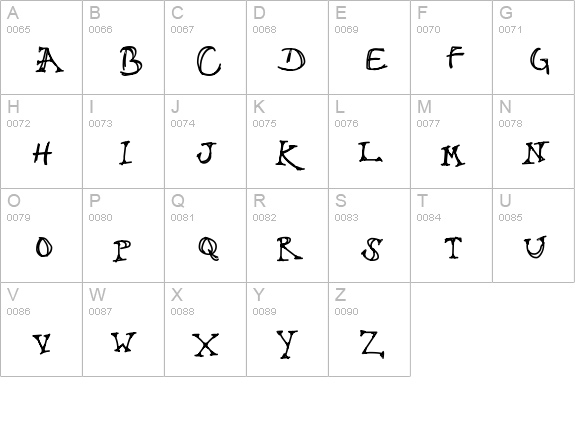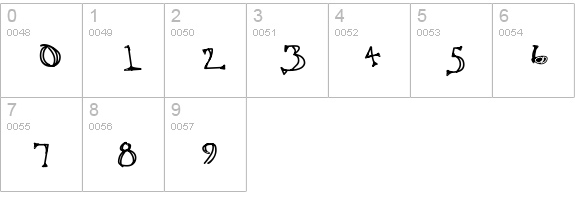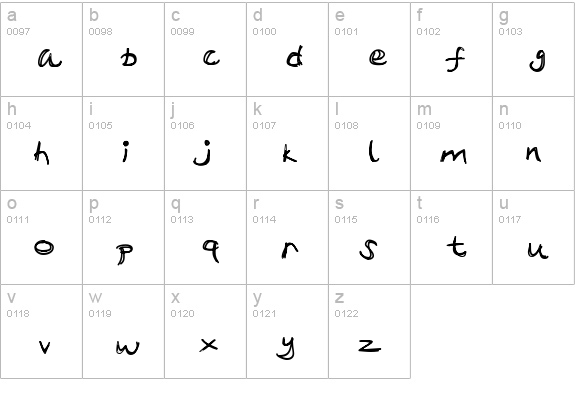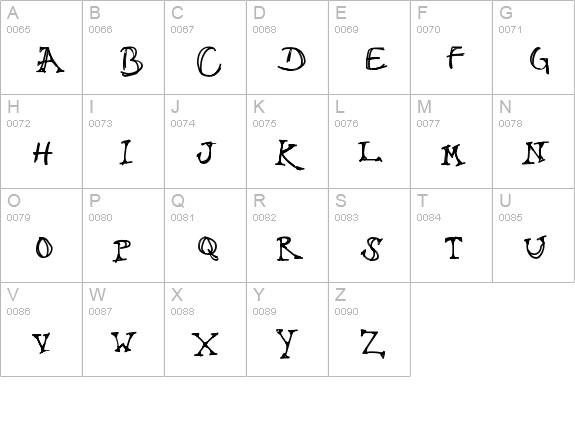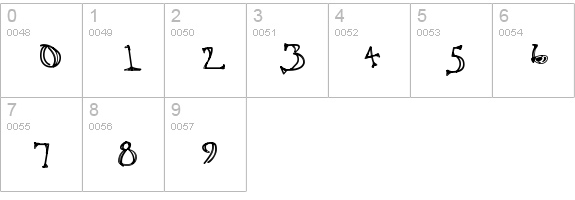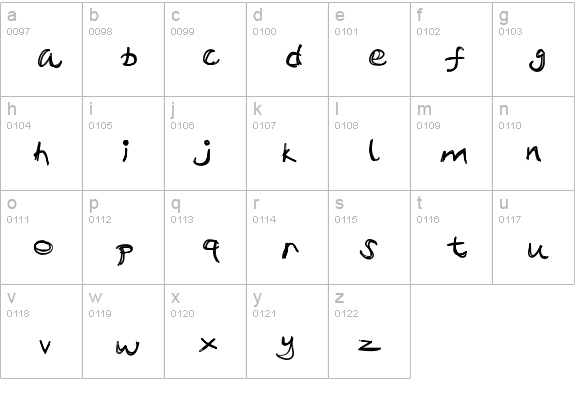
Introducing Sir Talks A Lot, a font that will make your words come alive with its unique and captivating style. This font is perfect for those who love to express themselves through their writing, as it brings a touch of elegance and sophistication to any project. With Sir Talks A Lot, your words will dance across the page, capturing the attention of readers and leaving a lasting impression. Its smooth and flowing curves create a sense of movement, adding a dynamic touch to your text. But what sets Sir Talks A Lot apart is not only its stunning design, but also the fact that it is free! Yes, you read that right, this incredible font is freely available to download at FontsMarket.com. Now, you can add a touch of creativity and professionalism to your work without breaking the bank. Whether you're designing a logo, creating a poster, or crafting a beautiful invitation, Sir Talks A Lot is the perfect choice. Its versatility and charm make it suitable for a wide range of projects, from elegant and formal to fun and whimsical. So why wait? Download Sir Talks A Lot today and let your words speak volumes. With its captivating design and the fact that it is freely available, this font is a must-have for any designer or creative individual looking to make an impact. Get ready to impress and inspire with Sir Talks A Lot!